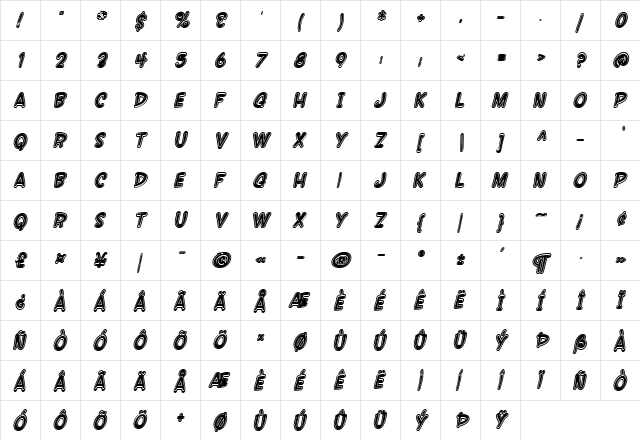
SF Wonder Comic Inline Italic
Italic · ShyFoundry Derek Vogelpohl ·
Design Context for SF Wonder Comic Inline Typeface
SF Wonder Comic Inline trades formality for fun, with bouncy, characterful letterforms that bring warmth and energy to any project. The dynamic lean of this cut emphasises speed and emphasis in any layout.
Well-suited to food and beverage brands with personality, educational materials, and fun-forward identities.
Font Pairing: Pairs well with a rounded or humanist sans for body copy, maintaining the friendly tone without relying on SF Wonder Comic Inline to carry extended reading.
Pro Tip: Use SF Wonder Comic Inline at larger display sizes where its expressive character can land. Pair with a clean, simple sans for body copy to maintain readability.